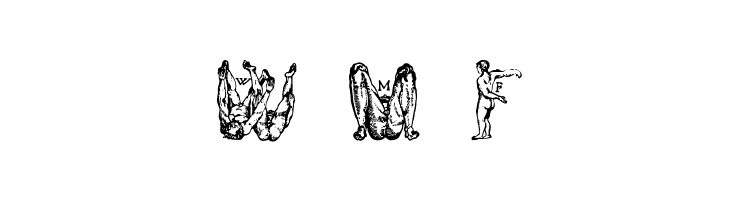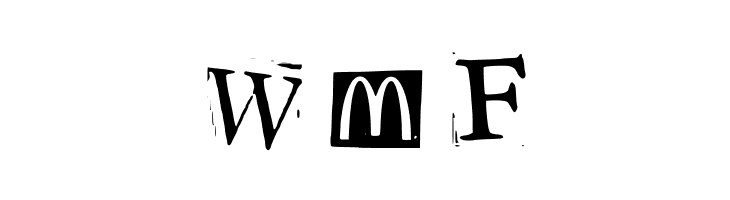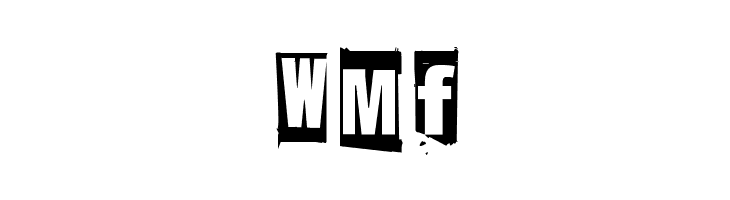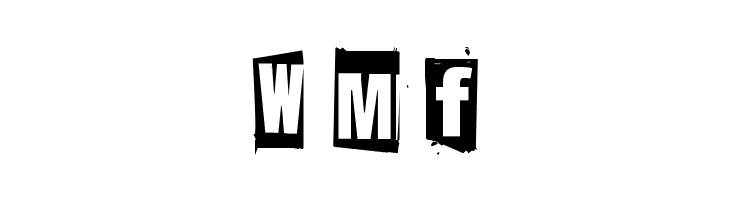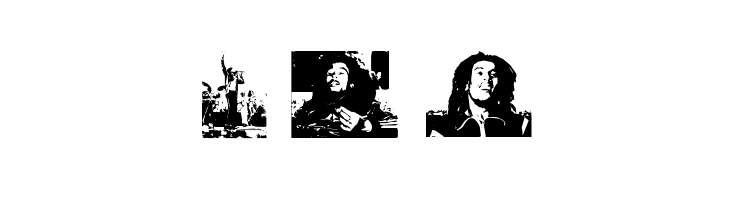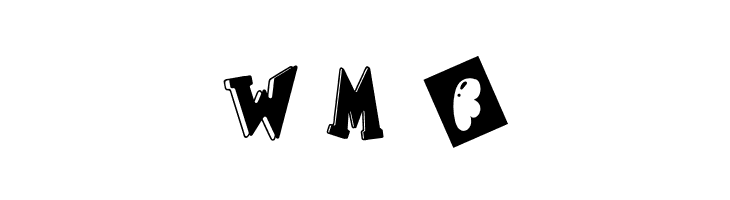
A decorative font made from human figures forming each letter and character.
A bold, collage-style font with a magazine cut-out aesthetic.
A bold, collage-style font with a punk rock, rebellious aesthetic.
A bold, distressed font with a punk rock, collage-like aesthetic.
A bold, collage-style font with a punk rock, DIY aesthetic.
Photo-collage font with each character as a unique image.
Photo-collage display font with reggae music iconography.
Bold, italic font with camouflage pattern and thick outlines.
A playful, collage-like font with bold, irregular shapes and high contrast.
A chaotic, ransom note-style font with high contrast and eclectic character designs.